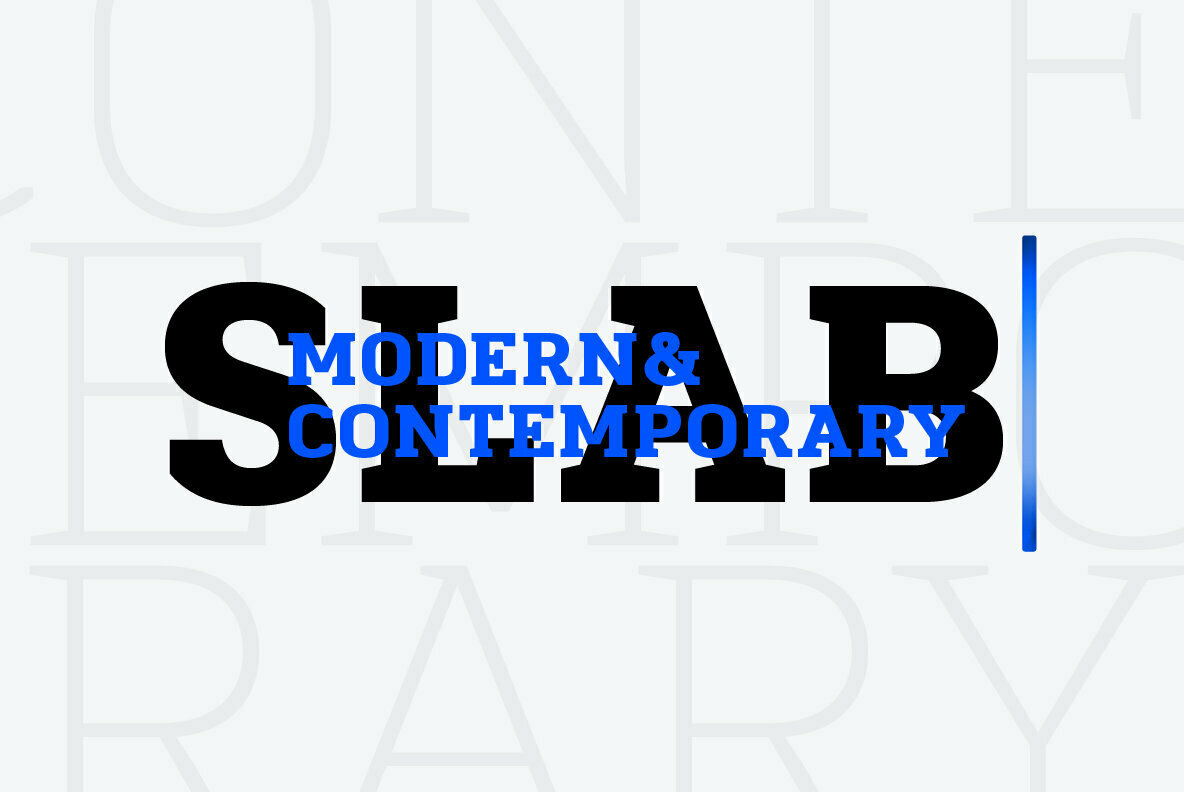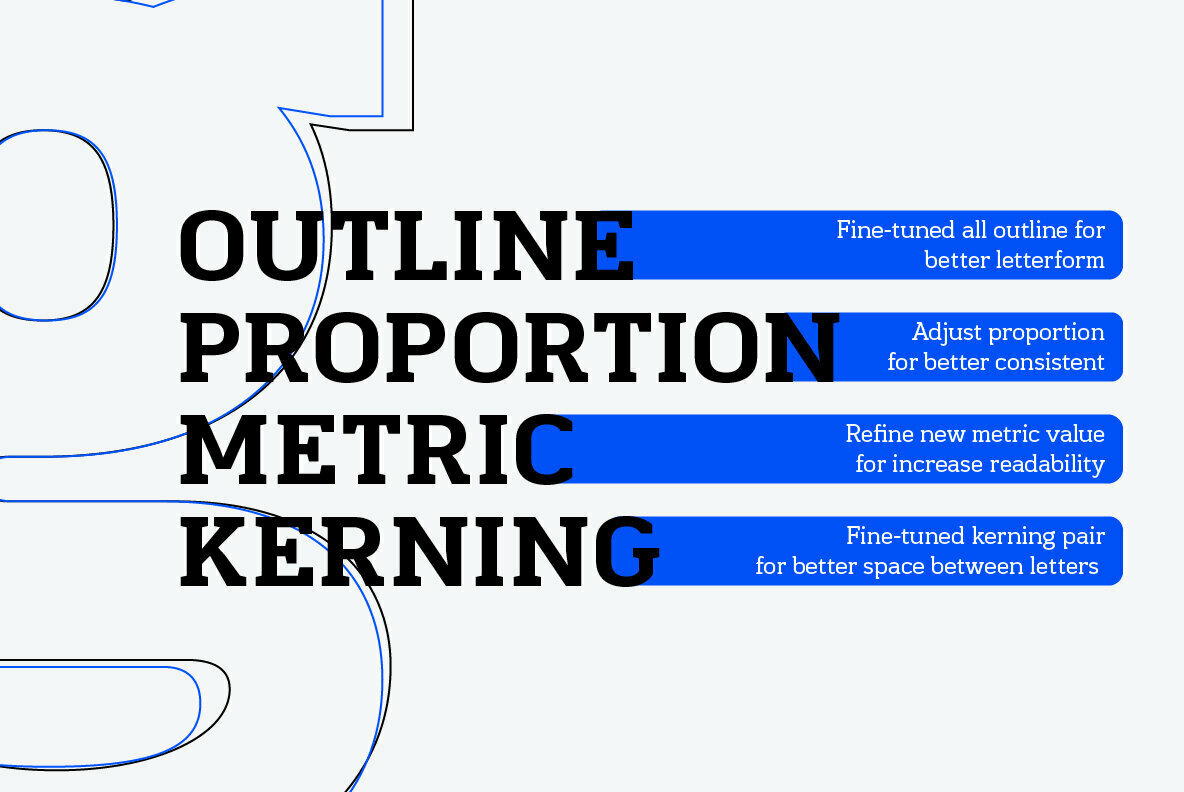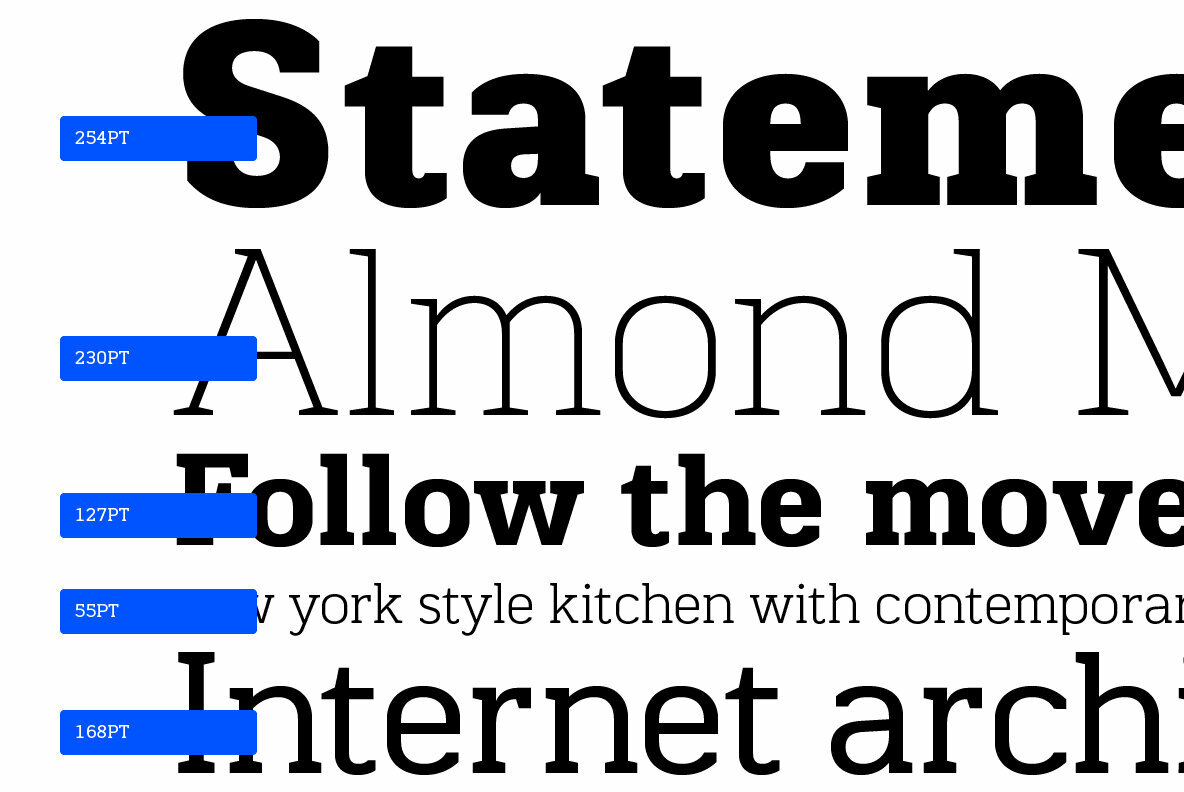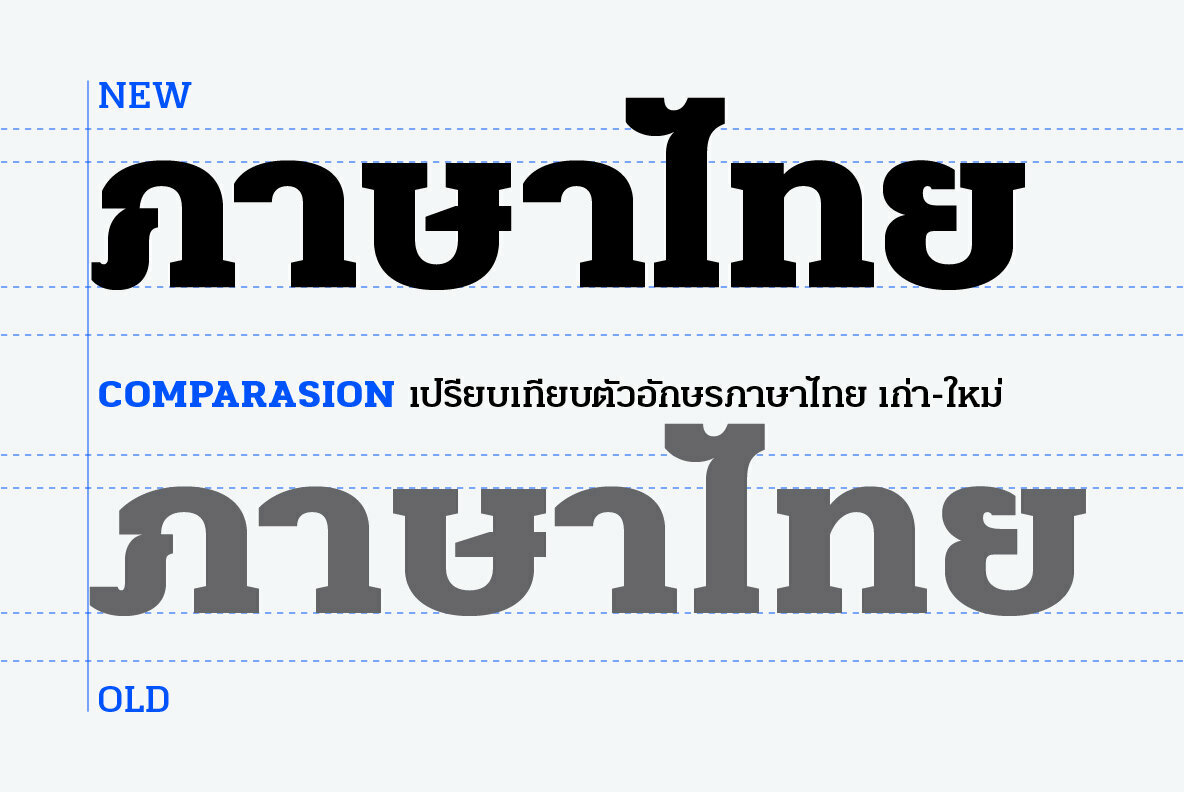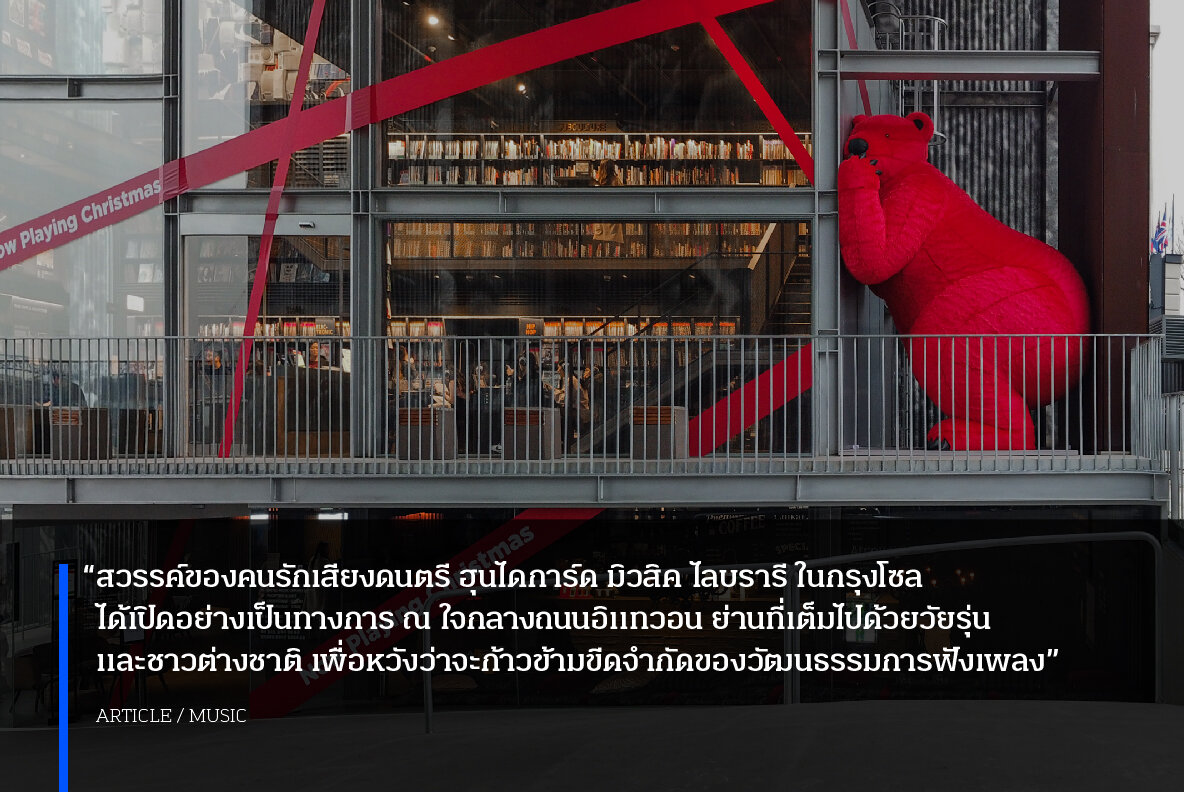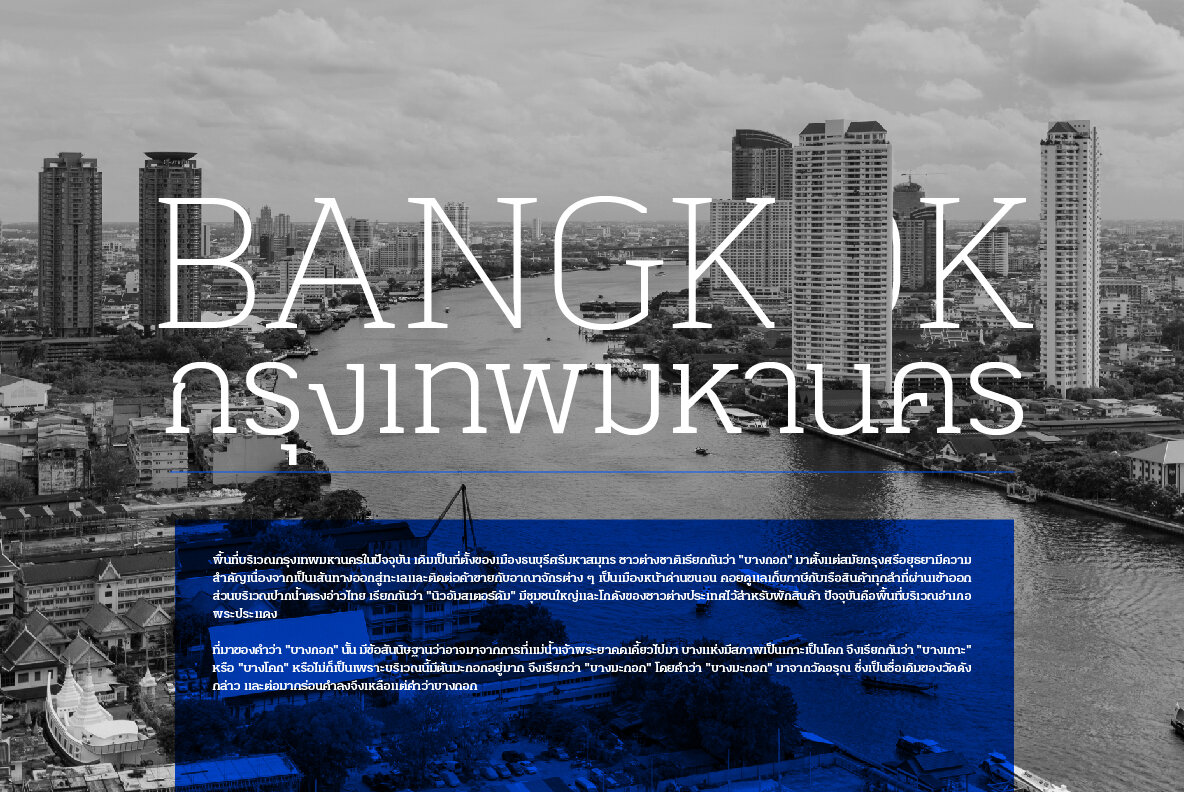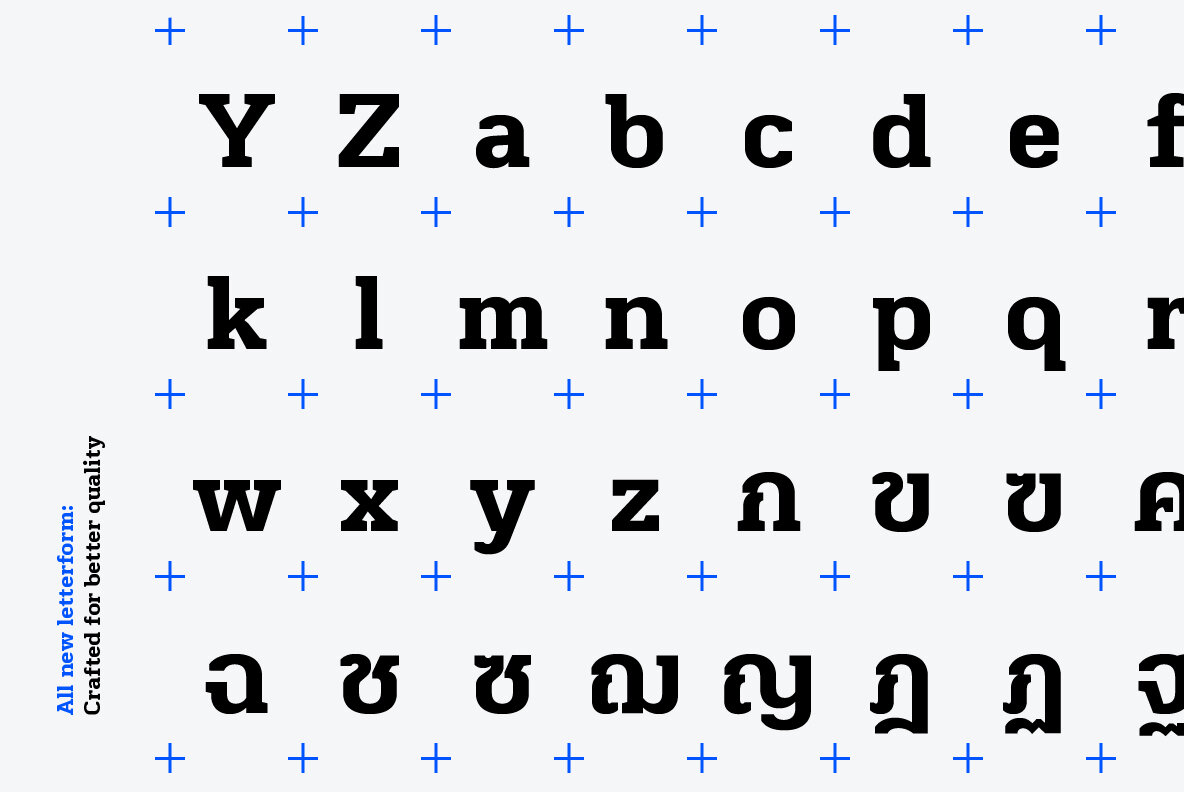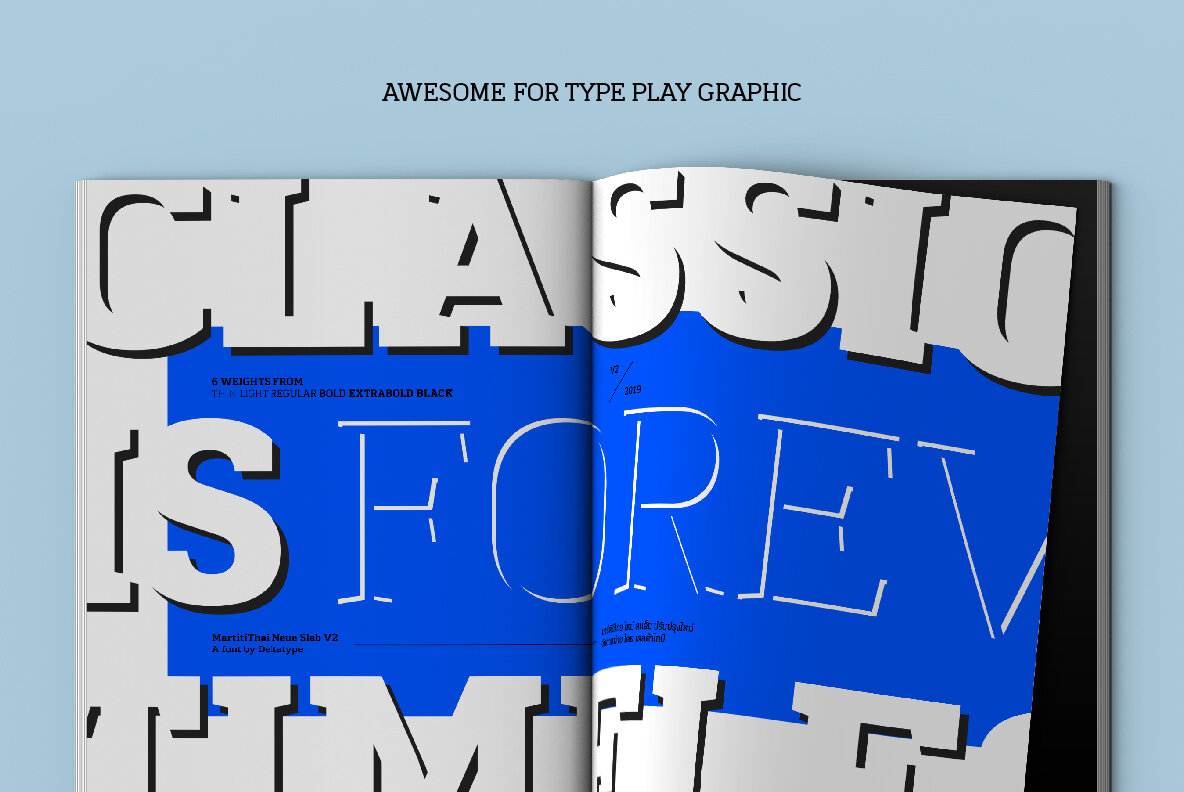
MartiniThai Neue Slab V2 Font
From award winning 2017 font from Demark (Thailand) and G-Mark (Japan) in Graphic Design, MartiniThai Neue Slab now available with better taste.
Deltatype create better version of MartiniThai Neue Slab V2 by refined for better outline, we fine-tuned all outline for better letterform. Proportion adjust for better consistent. Metric, refine new metric value for increase readability. Kerning, fine-tuned kerning pair for better between letters.
MartiniThai Neue Slab V2 come in six weights from Thin, Light, Regular, Bold, Extra Bold, Black. Thai Language is included in this package.
MartiniThai Neue Slab, a unique slab serif in Thai Scripts that create sense of timeless and contemporary used by media provider and nationwide in Thailand.
Deltatype is a Thai type design studio known for its innovative approach to the Thai alphabet, crafting modern fonts that honor the language's unique visual character. Their work responds to the evolving role of typography in Thai design, where letterforms often serve as expressive design components, not just...